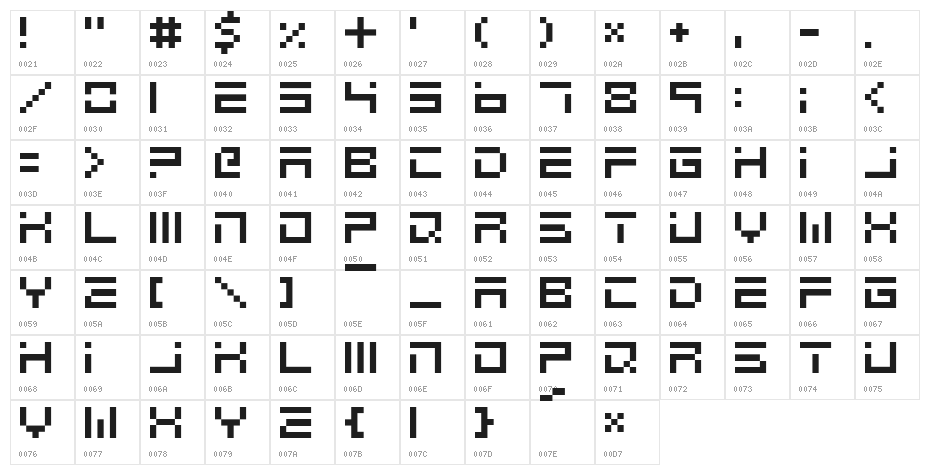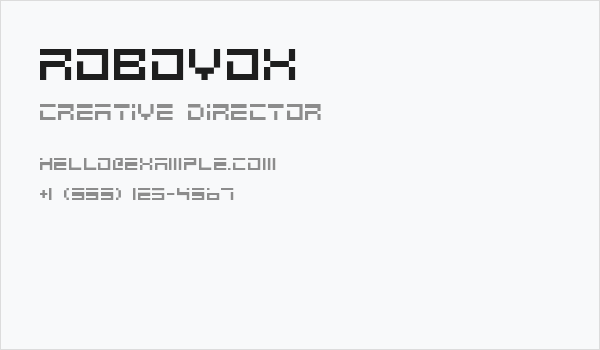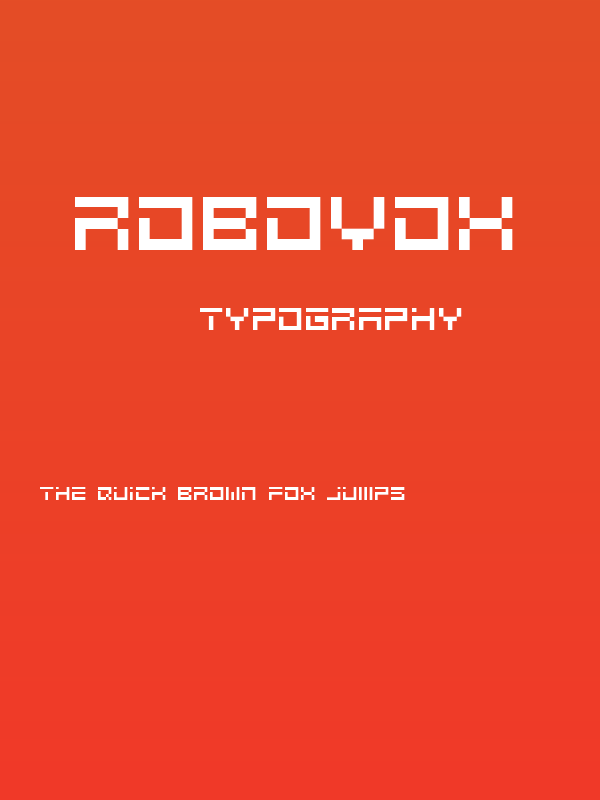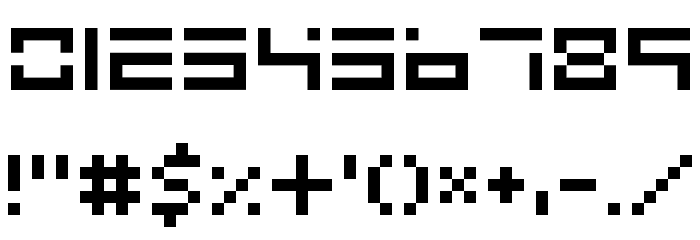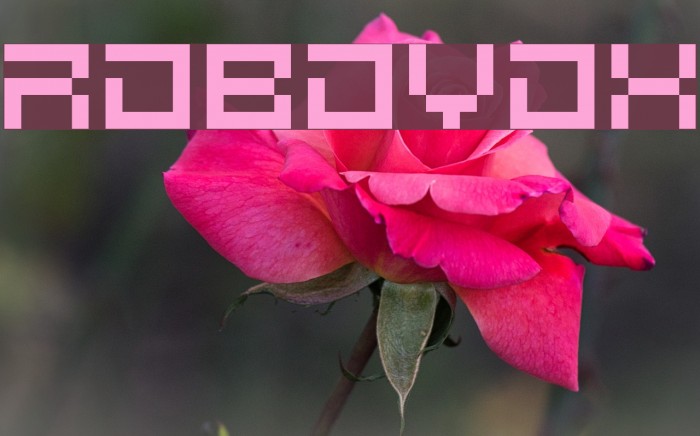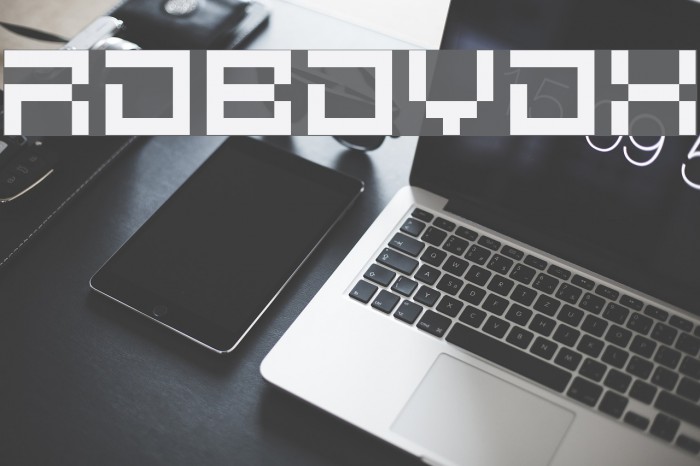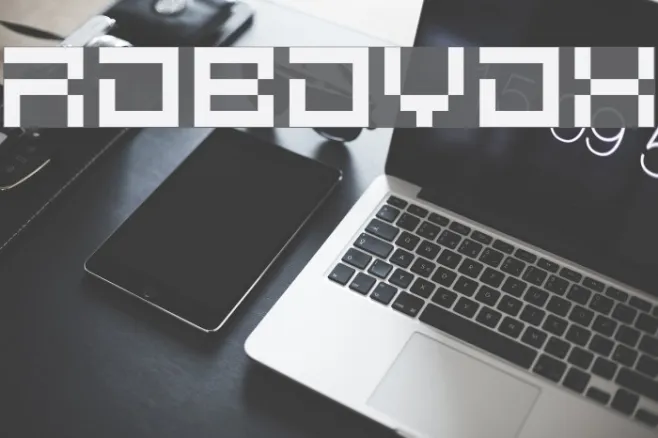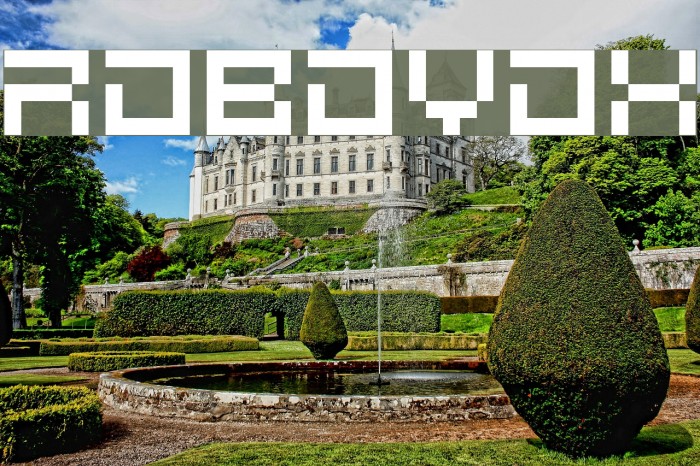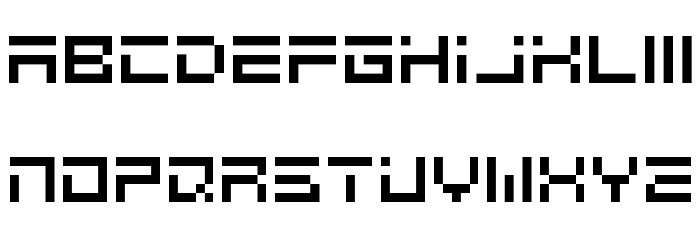
Robovox Font
Robovox Description
This font features a futuristic and digital aesthetic, characterized by its blocky, pixelated letterforms. Each character is constructed with sharp, angular lines, giving it a distinctly modern and technological feel. The uniformity in height and width across the characters creates a cohesive and structured appearance, reminiscent of early digital displays or retro video game graphics. The font's geometric nature makes it highly legible, even at smaller sizes, while its boldness ensures it stands out in any design. The inclusion of both uppercase and lowercase letters, along with numbers and a variety of special characters, provides versatility for various design applications.
ROBOVOX UPPERCASE
ROBOVOX LOWERCASE
ROBOVOX OTHER CHARS
| Proposed Projects | Ideal for tech-related branding, video game design, digital interfaces, and futuristic-themed posters. |